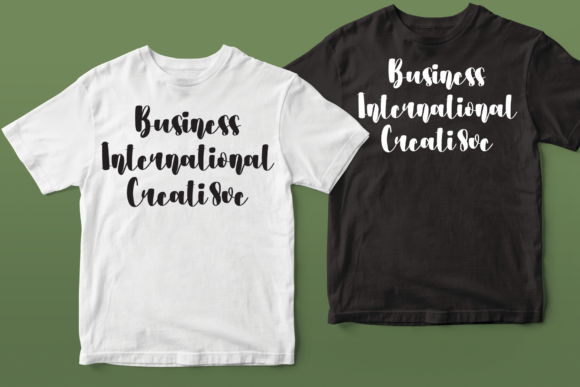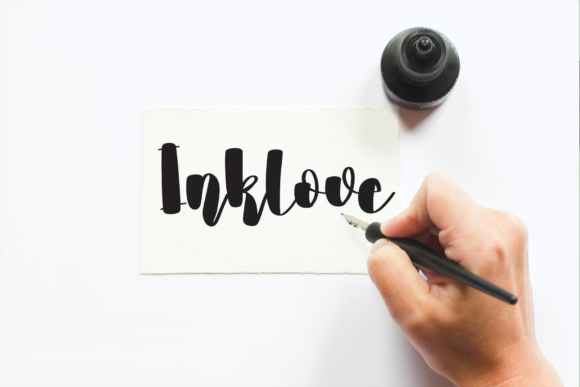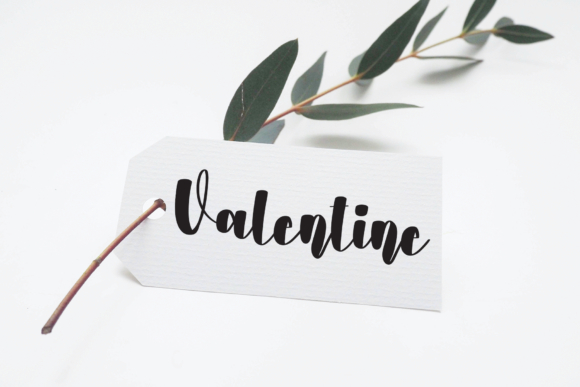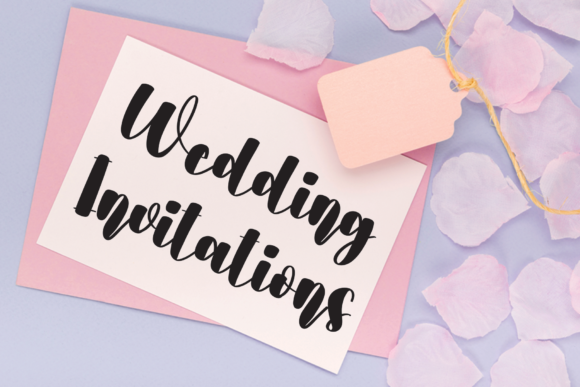
Introducing Farmhouse Font: The Perfect Addition to Your Design Arsenal
Are you a designer or crafter looking for a unique and exquisite font to elevate your creative projects? Look no further than Farmhouse Font! This stunning handwriting font is perfect for adding a touch of elegance and sophistication to a wide range of designs, from wedding invitations and fashion magazines to branding and product labels.
Farmhouse Font is a beautifully crafted handwriting font that boasts a distinctive and unique character. Its elegant, cursive strokes and flowing lines make it perfect for adding a touch of whimsy and romance to your designs. Whether you’re looking to create a vintage-inspired wedding invitation or a stylish fashion magazine, Farmhouse Font is the perfect choice.
What Can I Use Farmhouse Font For?
The versatility of Farmhouse Font is one of its most appealing features. This exquisite font can be used for a wide range of creative projects, including:
- Wedding Invitations: Add a touch of elegance and sophistication to your wedding invitations with Farmhouse Font. Perfect for creating beautiful, rustic-chic wedding stationery.
- Fashion Magazines: Use Farmhouse Font to add a stylish and trendy touch to your fashion magazine or blog. Its unique character is sure to make your publication stand out.
- Branding: Farmhouse Font is perfect for creating eye-catching brand logos, packaging, and marketing materials. Its distinctive character will help your brand stand out from the crowd.
- Quotes and Labels: Add a touch of whimsy and personality to your quotes, labels, and watermarks with Farmhouse Font. Perfect for creating beautiful, inspirational quotes and product labels.
Why Choose Farmhouse Font?
So why choose Farmhouse Font over other fonts on the market? Here are just a few reasons why designers and crafters love this exquisite handwriting font:
- Unique Character: Farmhouse Font boasts a distinctive and unique character that will add a touch of personality to your designs.
- Elegant and Sophisticated: This beautiful handwriting font is perfect for creating elegant and sophisticated designs that will impress your clients or audience.
- Versatile: Farmhouse Font can be used for a wide range of creative projects, from wedding invitations and fashion magazines to branding and product labels.
- Easy to Read: Despite its elegant and cursive strokes, Farmhouse Font is easy to read, making it perfect for use in body text or captions.
How to Use Farmhouse Font
- Experiment with Different Sizes: Farmhouse Font looks beautiful in a range of sizes, from small and delicate to large and bold. Experiment with different sizes to find the perfect fit for your design.
- Play with Colors: Farmhouse Font looks stunning in a range of colors, from classic black and white to bold and bright hues. Experiment with different colors to find the perfect fit for your design.
- Combine with Other Fonts: Farmhouse Font pairs beautifully with other fonts, such as sans-serif fonts and script fonts. Experiment with different font combinations to create a unique and eye-catching design.